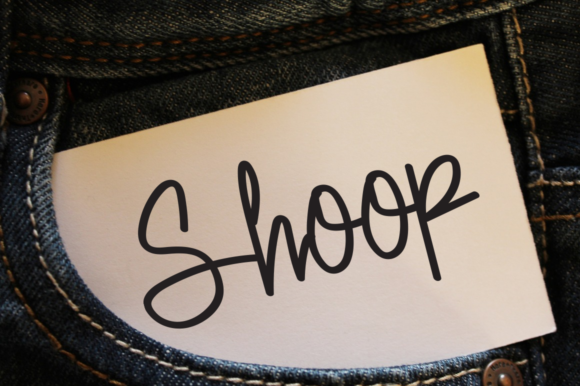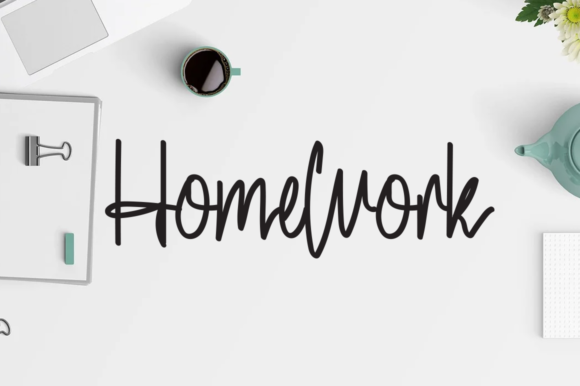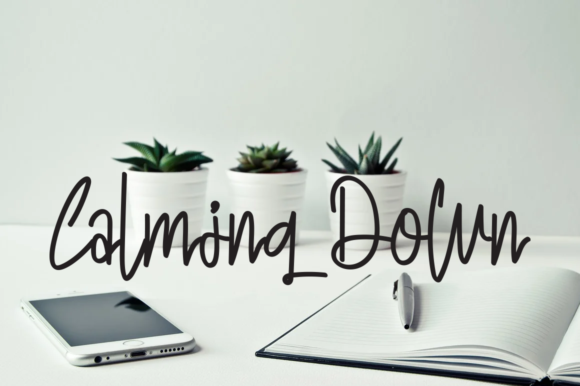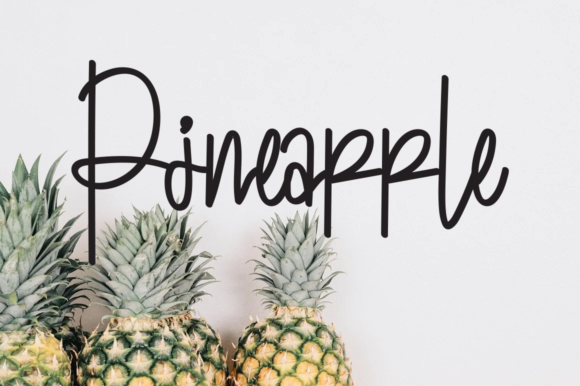
The Perfect Font for Your Special Moments: A Deep Dive into Betterhalf Font
I still remember the time I was working on a wedding invitation design project, and I just couldn’t seem to find the right font. My client wanted something elegant, yet personal, and I was determined to deliver. That’s when I stumbled upon the Betterhalf font, and it instantly became my go-to choice. In this article, I’ll share my experience with this beautiful handwritten font, its features, and how to make the most of it in your designs.
An Honest Review of Betterhalf Font
So, what makes Betterhalf font so special? Here are some things I love about it:
• ✨ Unique and elegant handwritten style that’s perfect for personal and wedding designs
• ✅ Beautifully crafted letters and characters that exude sophistication
• 🖌️ Highly versatile and can be used for a variety of design projects, from wedding invitations to logos
While Betterhalf font is amazing, it’s not perfect. Here are some small quirks to keep in mind:
• 🤔 Some users may find the font a bit too delicate for certain design projects
• ⚠️ Limited availability of certain OpenType features, such as ligatures and stylistic alternates
The Story Behind Betterhalf Font
Betterhalf font was designed with love and care by a talented type designer who wanted to create a unique and elegant handwritten font. The designer’s inspiration came from the beauty of handwritten letters and the need for a personal touch in digital designs. The result is a stunning font that’s perfect for creating special moments and memories.
Font Name Betterhalf Font
Author Garcio
What is Betterhalf font? Betterhalf font is a unique and elegant handwritten font that’s perfect for personal and wedding designs.